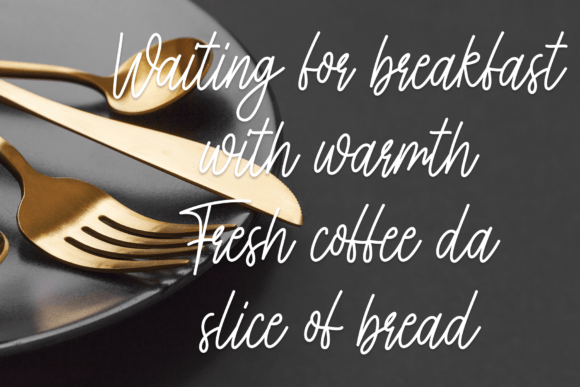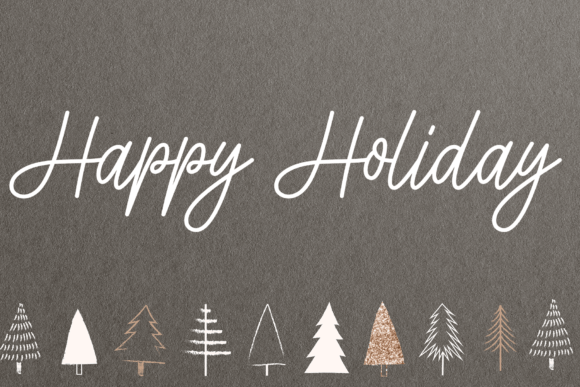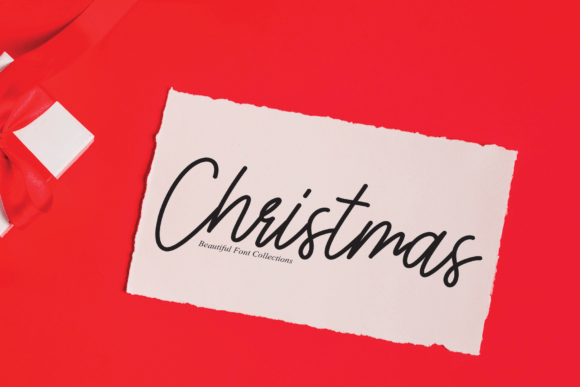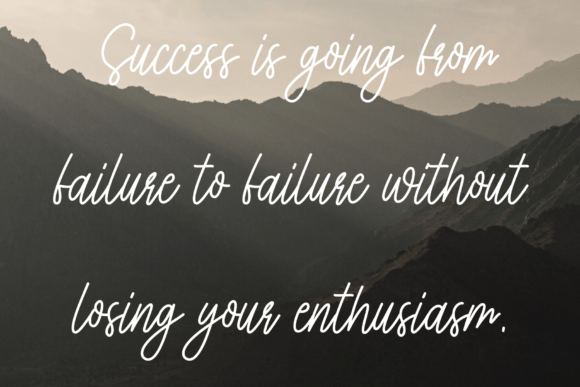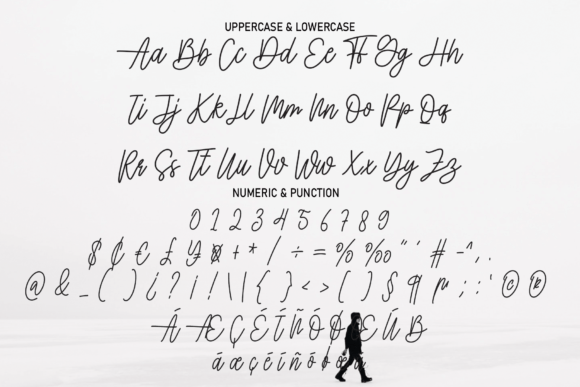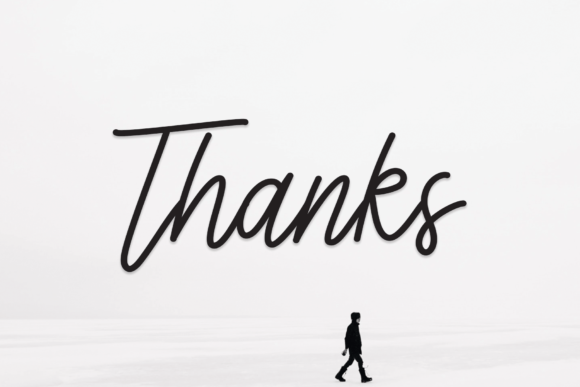
Mighty Font
About Mighty Font
“Mighty” is a truly captivating script font that exudes brilliance and style. With its impeccable craftsmanship and intricate detailing, this font stands out as a remarkable addition to your font library. Regardless of the topic or theme, “Mighty” is a valuable asset that has the power to elevate any creation, making it more visually striking and memorable.
What makes “Mighty” exceptional is its dazzling script style. The font’s elegant and flowing characters are meticulously designed, capturing attention with their grace and sophistication. Each letter is a work of art, carefully crafted to create a harmonious and visually appealing composition. Whether you’re designing logos, branding materials, invitations, or any other creative project, “Mighty” adds a touch of brilliance that enhances the overall aesthetic.
The meticulous detailing of “Mighty” sets it apart as a font of exceptional quality. Every curve and stroke is carefully considered, resulting in a font that exudes professionalism and elegance. The fine details add depth and character, making “Mighty” a standout choice for projects that require a high level of refinement and sophistication.
One of the key strengths of “Mighty” lies in its versatility. It effortlessly adapts to various contexts, enhancing the visual appeal of any design it graces. Whether you’re working on print materials, digital content, or advertising, this font seamlessly integrates into different mediums, ensuring a consistent and polished look. Its readability and distinct style make it a versatile choice for both formal and creative projects.
Incorporating “Mighty” into your designs not only adds a touch of elegance but also conveys a sense of professionalism and attention to detail. The font’s ability to enhance the overall impact of your creations makes it an invaluable tool for graphic designers, marketers, and creatives seeking to make a lasting impression.
In conclusion, “Mighty” is more than just a font; it’s a statement of excellence and sophistication. Its dazzling script style, combined with its meticulous detailing, makes it a wonderful asset for any creative endeavor. Embrace the brilliance of “Mighty” and let it elevate your designs, turning them into visually stunning masterpieces that leave a lasting mark on your audience. Experience the power of “Mighty” and witness how it transforms your creations into works of art, making a significant impact in the world of design.